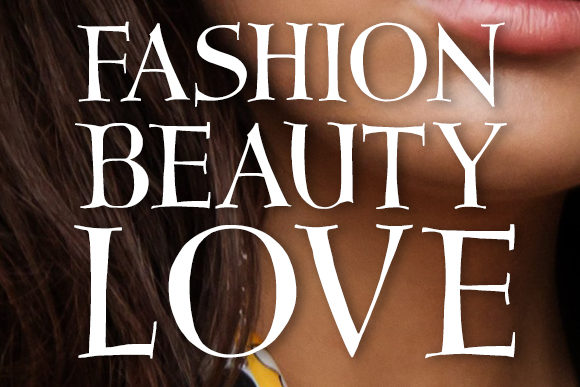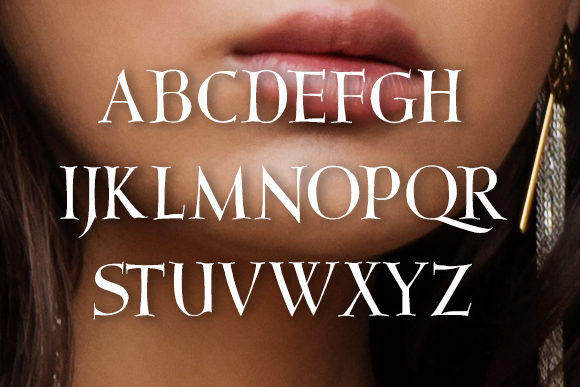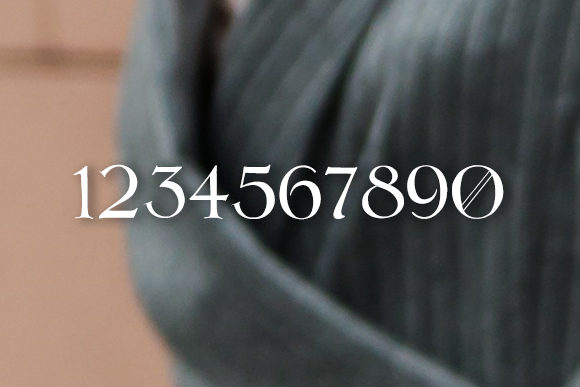
Introduction to Moderno Font
Have you ever been working on a creative project, pouring your heart and soul into it, only to feel like something is missing? That’s exactly how I felt when I was designing a poster for a local art exhibition. I had the perfect concept, but the font just wasn’t doing it justice. That’s when I stumbled upon the Moderno Font – a game-changing addition to any design project.
As a designer, you know how crucial it is to have a reliable design resource that can elevate your work. The Moderno Font is a high-quality, casual serif font that is sure to bring your creative ideas to life. With its stunning appearance, it’s perfect for posters, banners, and prints. Plus, it’s available for free download, making it an accessible addition to any design arsenal.
Key Features of Moderno Font
- High-quality, professional design ideal for creative projects and design resources.
- Unique characteristics include a modern, clean aesthetic and a versatile design that suits various design applications.
- Perfect for use in digital design, print materials, and online graphics, making it a valuable design resource.
Honest Review: Moderno Font
As a designer, I’m always on the lookout for new design resources to elevate my creative projects. Recently, I came across the Moderno Font, and I must say it’s been a game-changer for me. The font is a beautiful, high-quality addition to any design project.
- ✨ The font’s sleek, modern design makes it perfect for any creative project, from logos to brochures.
However, there are a few limitations to consider. ⚠️ The font may not be suitable for projects that require a lot of bold, dramatic text. Additionally, the font’s design may not be as versatile as some other options on the market.
Overall, I’m thoroughly impressed with the Moderno Font. It’s a high-quality design resource that’s perfect for designers looking to add a touch of sophistication to their projects. With its sleek design and transparent background feature, it’s a must-have for any designer’s toolkit.
When using the Moderno Font, consider the following tips to get the most out of it: use it in combination with other high-quality design resources, experiment with different font sizes and styles, and take advantage of its transparent background feature.
The Moderno Font is commonly used in a variety of creative projects, including graphic design, logo creation, and document design. Its versatility and high-quality design make it an ideal choice for designers and non-designers alike.